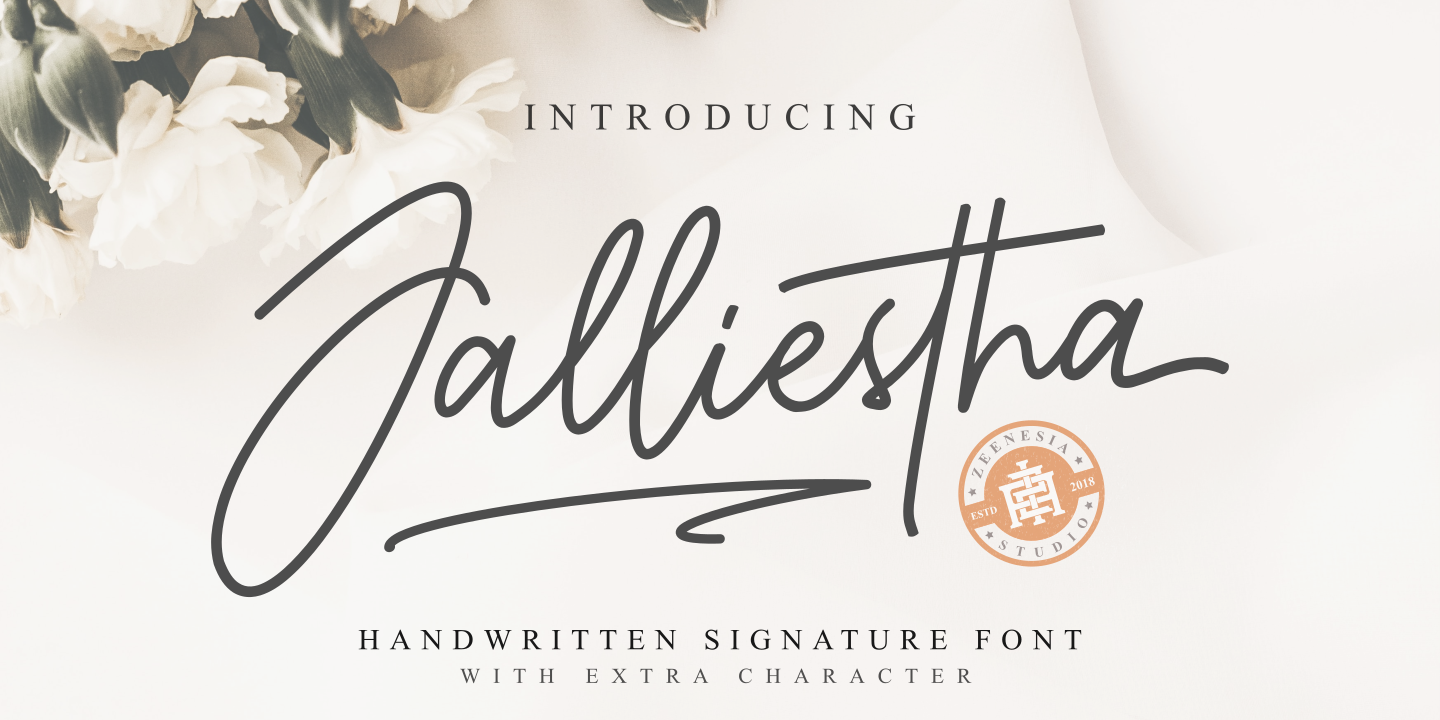
Jalliestha Font is perfect for luxury calligraphy studios, elegant wedding stationery, high-end fashion brand logos, sophisticated greeting cards, premium invitation designs, upscale beauty salon signage, refined jewelry packaging, exclusive boutique branding, graceful script workshops, and any project requiring sophisticated elegance with flowing calligraphic beauty and timeless handwritten sophistication.
What makes Jalliestha Font exciting is its graceful sophistication and calligraphic mastery that embodies the refined artistry of professional hand-lettering and the timeless elegance of classical script traditions. The typeface features flowing, masterfully crafted letterforms with elegant flourishes and sophisticated details that evoke the beauty of expert calligraphy and the luxurious appeal of handwritten correspondence. Its refined character design speaks to audiences who appreciate artistic excellence, sophisticated craftsmanship, and the enduring beauty of elegant script design, making it perfect for luxury brands seeking to communicate refinement, artistry, and the distinguished elegance of premium calligraphic tradition that transforms written communication into artistic expression.
Jalliestha Font family includes regular and bold weights with complete character sets featuring uppercase and lowercase letters, elegant numerals, sophisticated punctuation marks, and calligraphic decorative elements. The typeface incorporates professional script techniques and classical calligraphy principles that enhance its sophisticated appearance while maintaining excellent readability across all luxury applications and elegant design projects.
Whether you're creating luxury brand identity, designing sophisticated stationery, or developing elegant marketing materials, Jalliestha Font Free Download provides the perfect typographic foundation that celebrates calligraphic artistry and refined elegance. The font's sophisticated appeal and calligraphic character make it particularly effective for luxury services, wedding planners, and premium lifestyle brands. Its elegant aesthetics translate beautifully across luxury signage, premium publications, and digital platforms, ensuring your brand communicates the kind of authentic sophistication and calligraphic excellence that resonates with discerning clients seeking the finest expressions of elegant design and artistic craftsmanship.